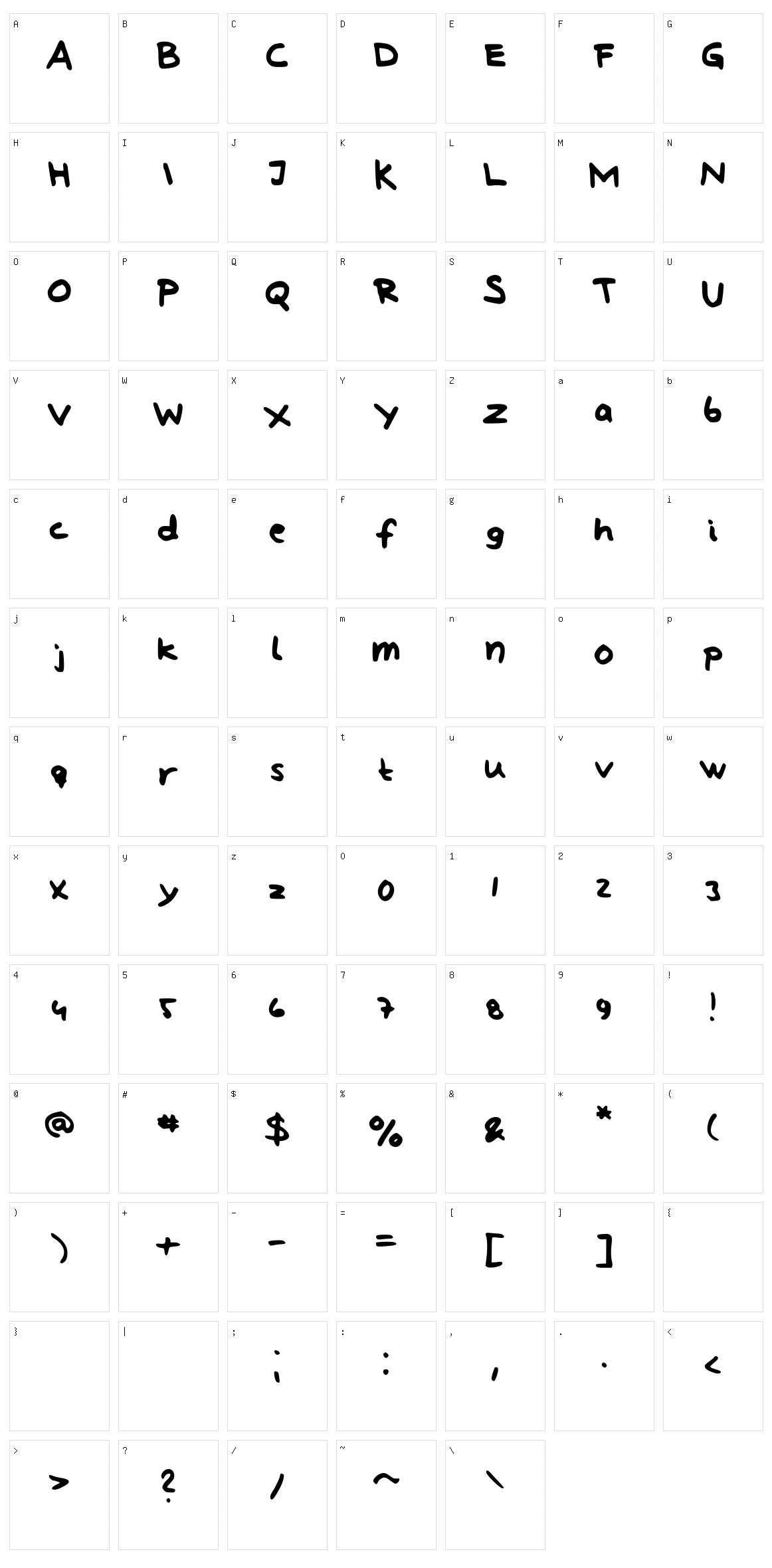
The free font Lindberg hand and symbols is carefully designed by Sara Lindberg, showcasing a thoughtful balance of creativity and usability and falls under the Script font style. When you download the ZIP file, it contains only 15.94 KB of font files, making it lightweight and quick to download. Please review the license details below to understand permitted usage and distribution rights. If license information is not available, we recommend using this font for personal projects only or contacting the author directly for commercial usage permissions.